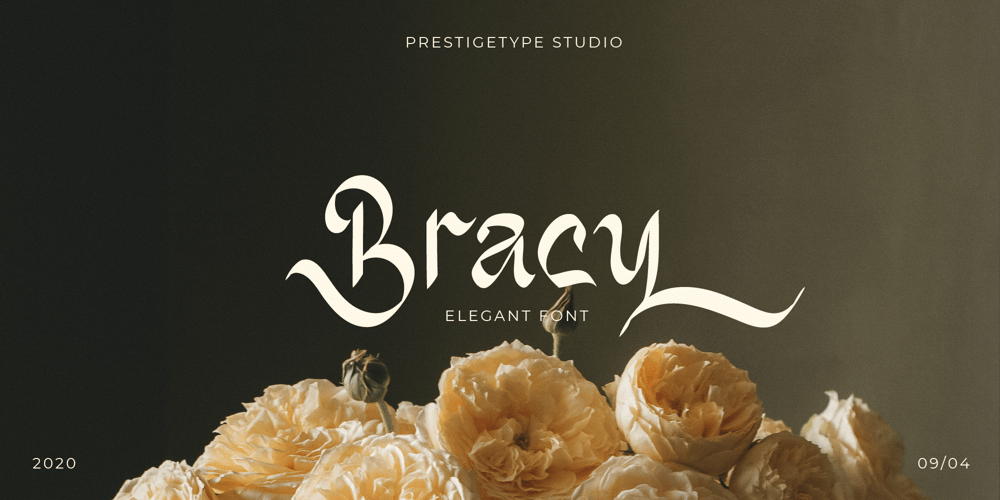
Bracy Font Family was designed by Mohamad Ridwan and published by Prestigetype Studio. Bracy contains 1 styles and family package options. Bracy is an elegant display font with a unique artistic touch in every glyph. Bracy is perfectly suitable for display use such as elegant logos, brand, headlines, business cards, titles, visual identities, covers, labels, fashion industry, social media, advertising purposes, or any display use.Bracy includes: Standard Characters Numbers and punctuation Multilingual Ligatures / Discretionary Ligatures Alternates Character PUA Encoded We highly recommend using a program that supports OpenType features and Glyphs panels like many Adobe apps and Corel Draw so you can see and access all Glyph variations.We hope you enjoy our font – please do let us know by emailing us at info@prestigetype.com or prestigetypestudio@gmail.com if you need something!